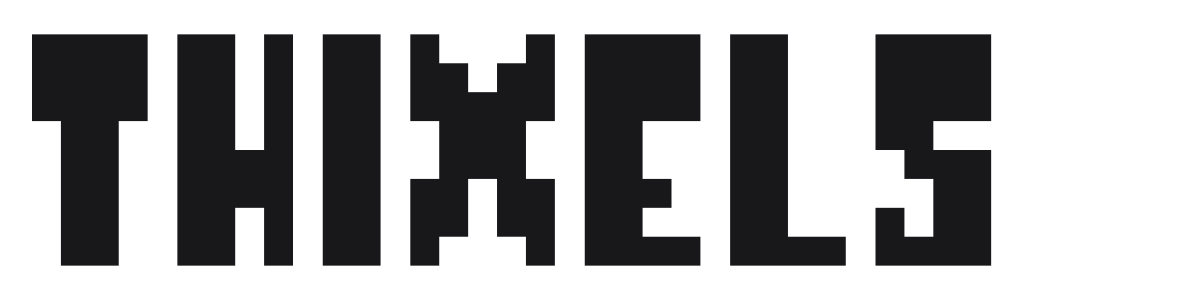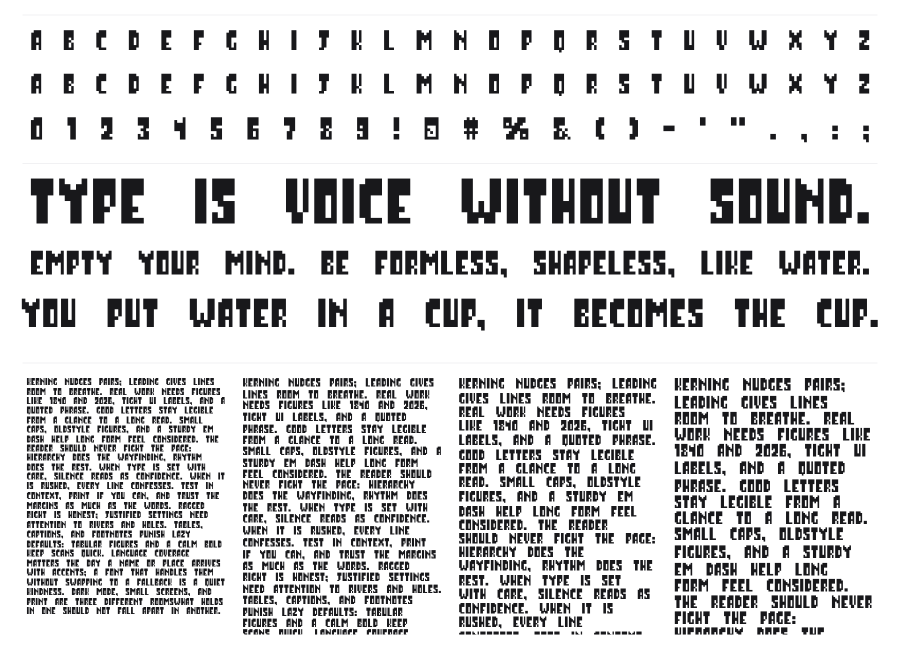
Thixels
Thixels is a bold condensed pixel font built on a strict square grid, giving every character a chunky, 8-bit arcade quality. The heavy monoweight strokes and hard corners read instantly as retro digital, with a personality that sits somewhere between classic game cartridge typography and lo-fi brutalism. It was, per the author, created by accident.